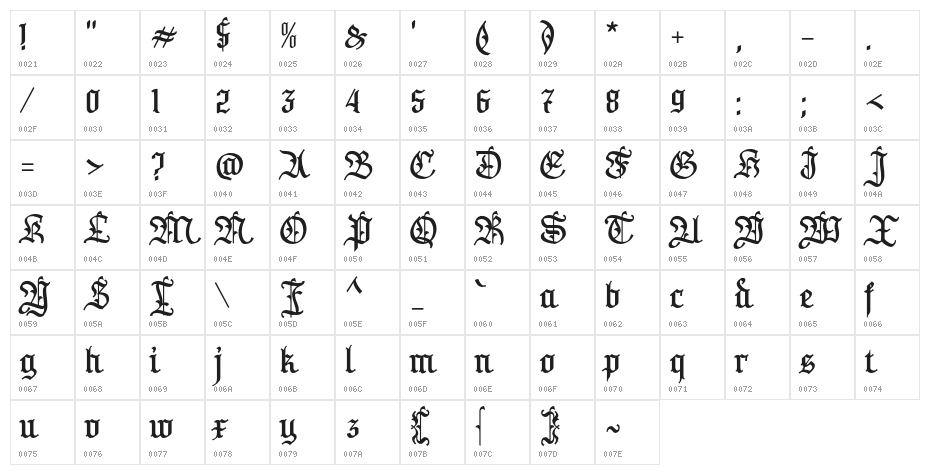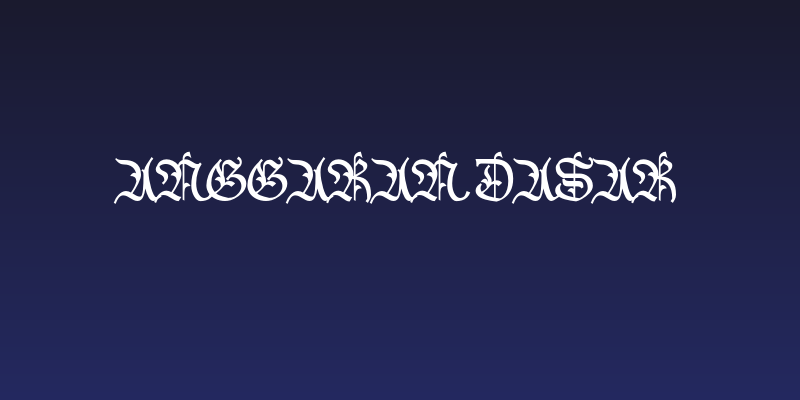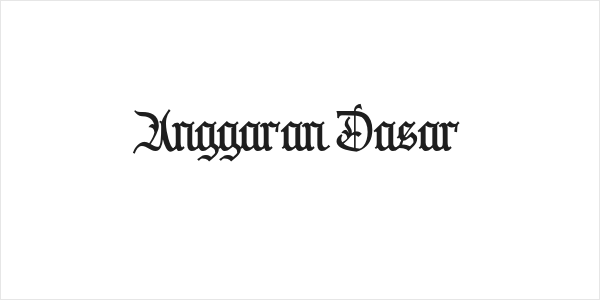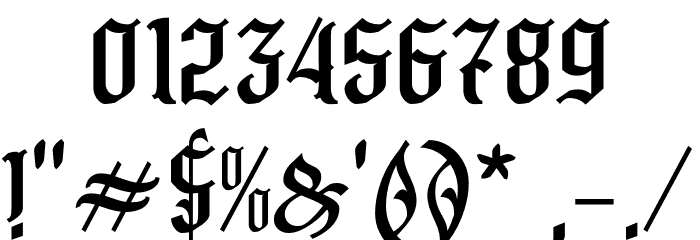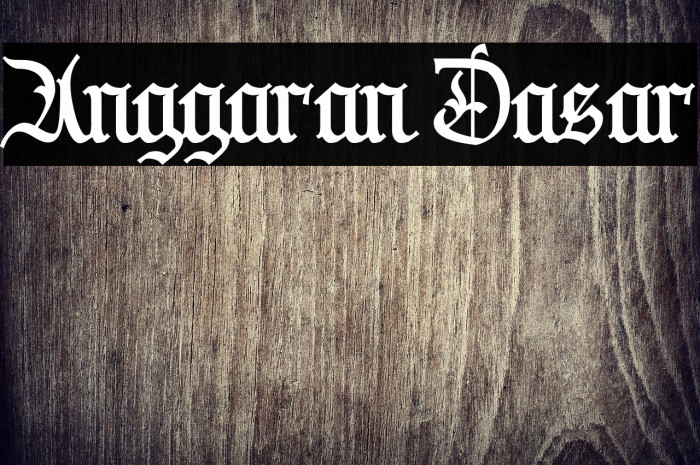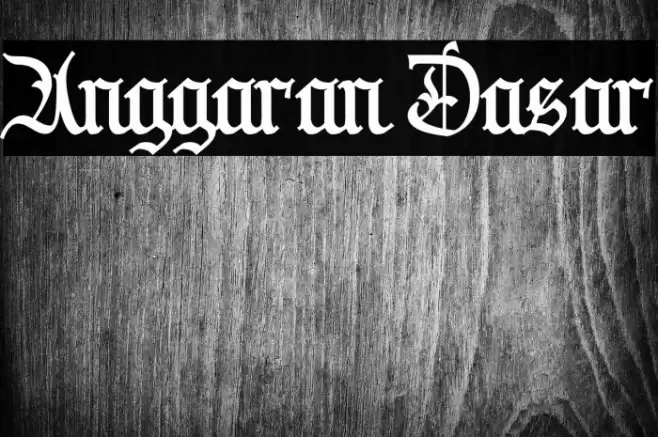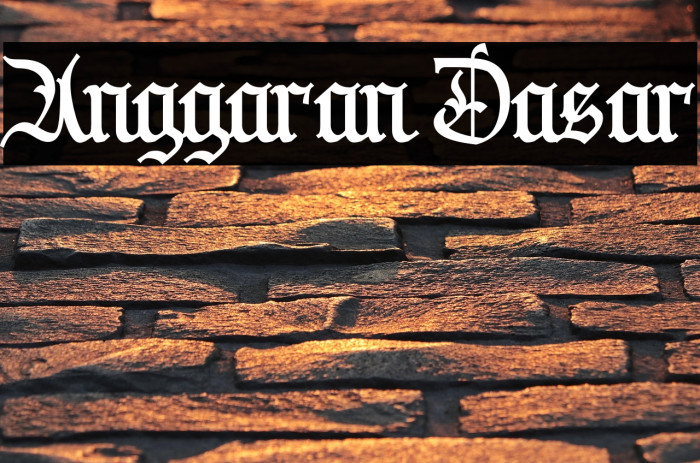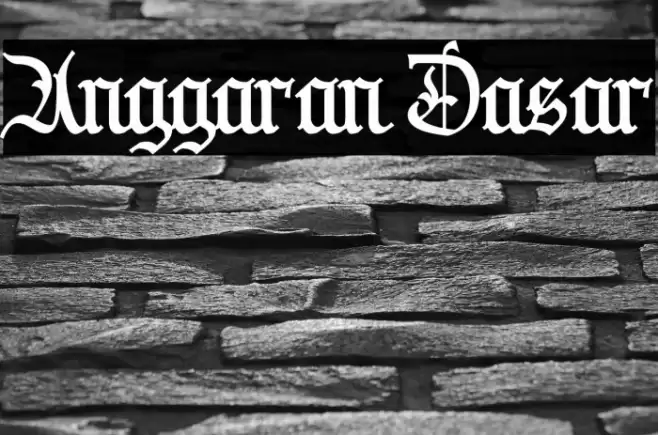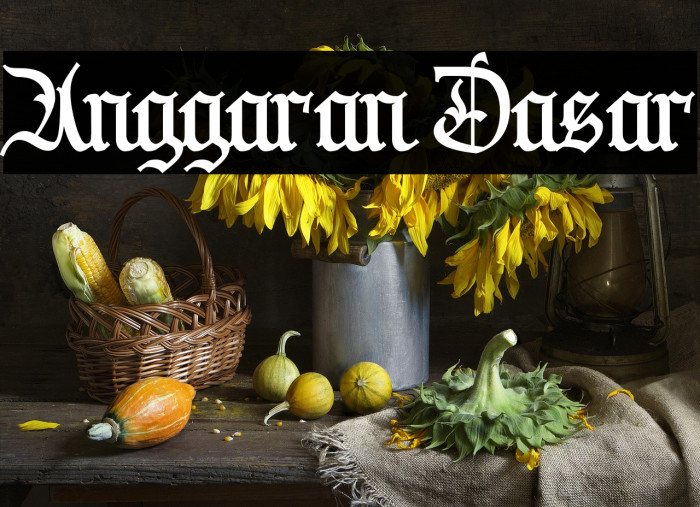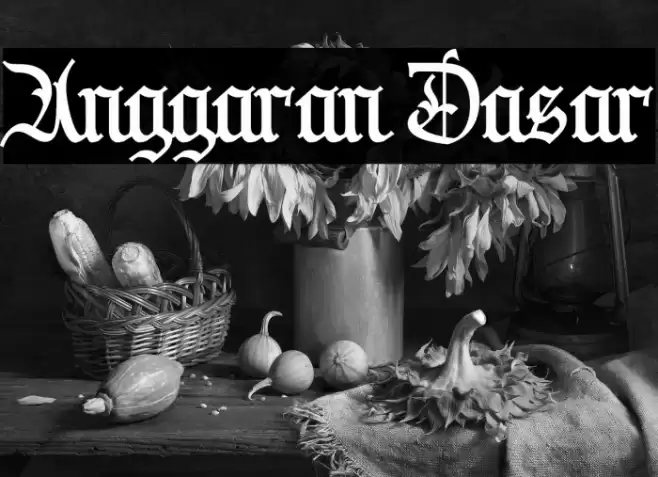
Anggaran Dasar Font
✎ Gothic
| 名前 | Anggaran Dasar |
| フォントファミリー | A Anggaran Dasar |
| カテゴリ | Gothic |
| 用途 | Logos, Headlines, Decorative text |
| おすすめプロジェクト | Ideal for historical documents, vintage-themed designs, book covers, posters, and branding that seeks a medieval or Gothic touch. |